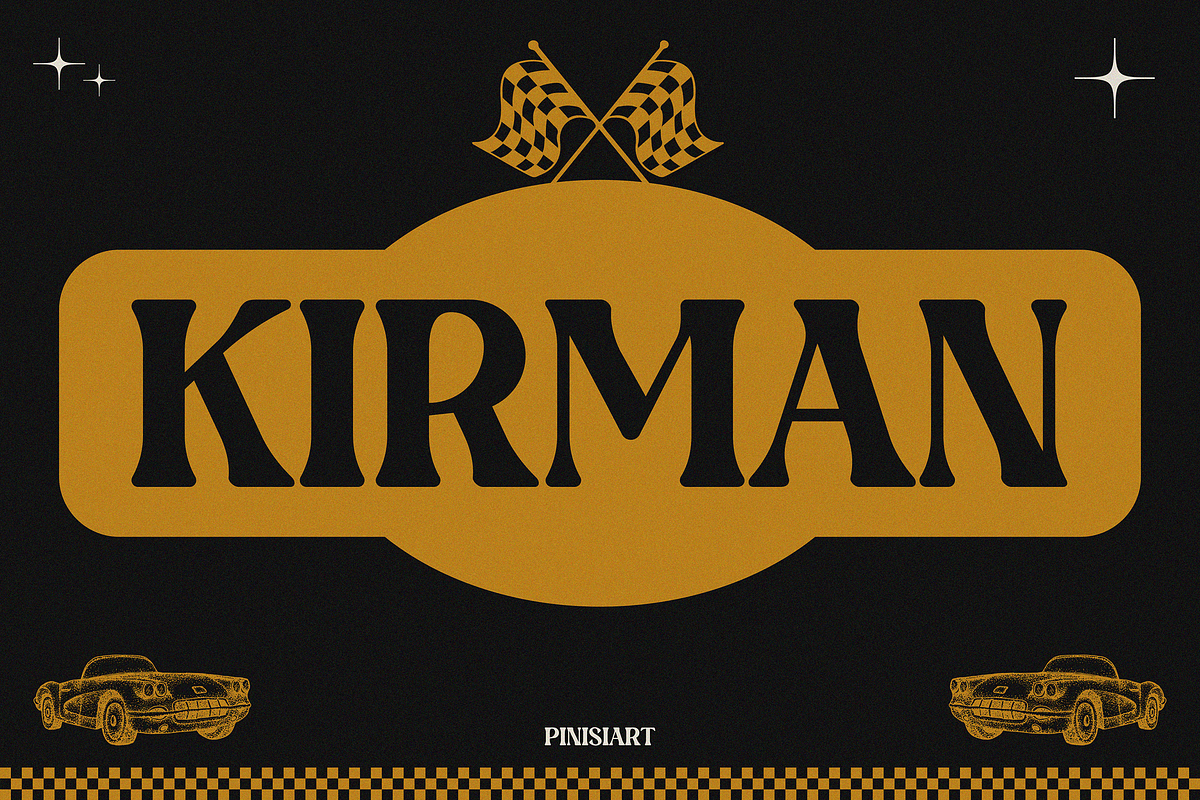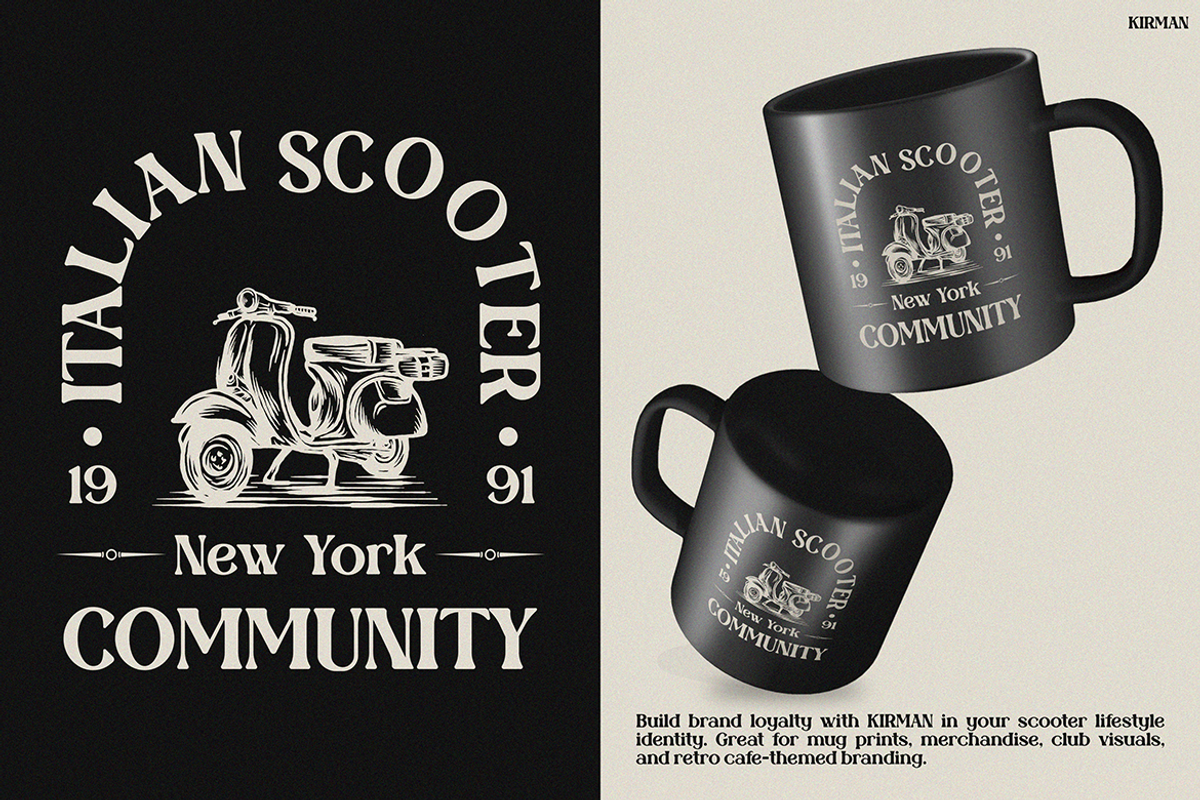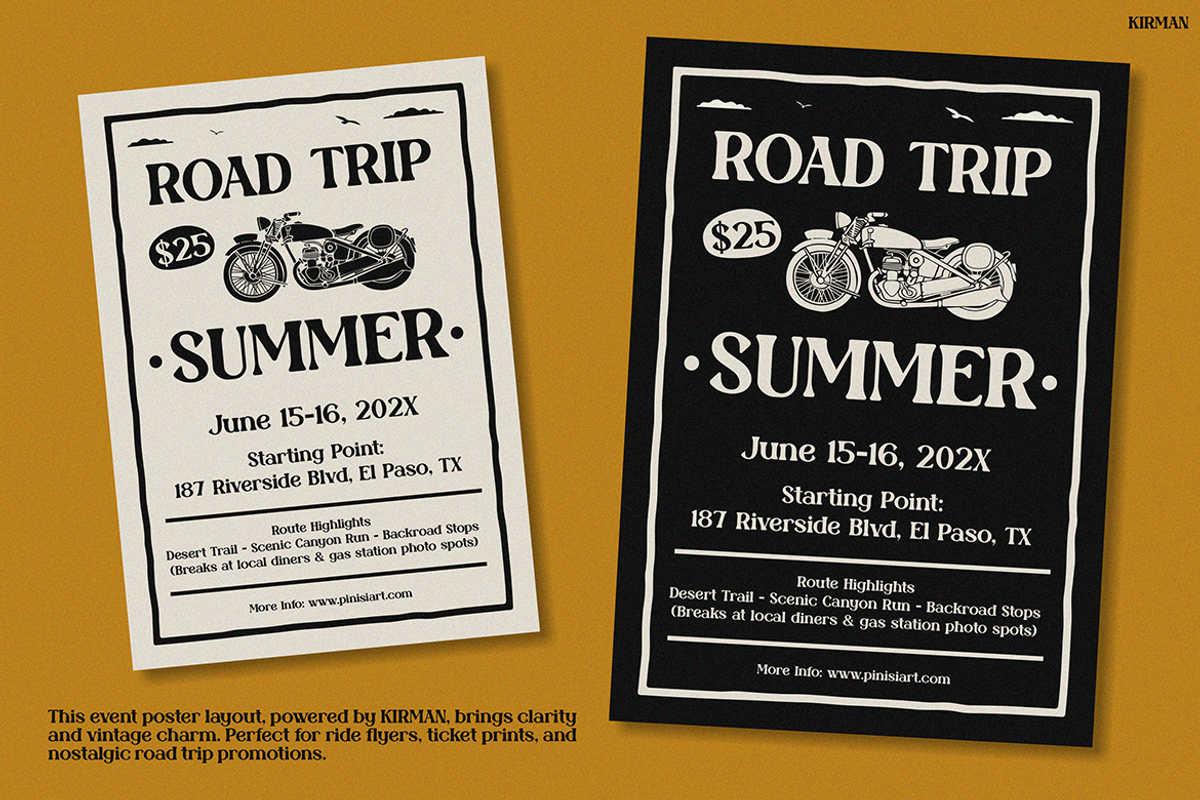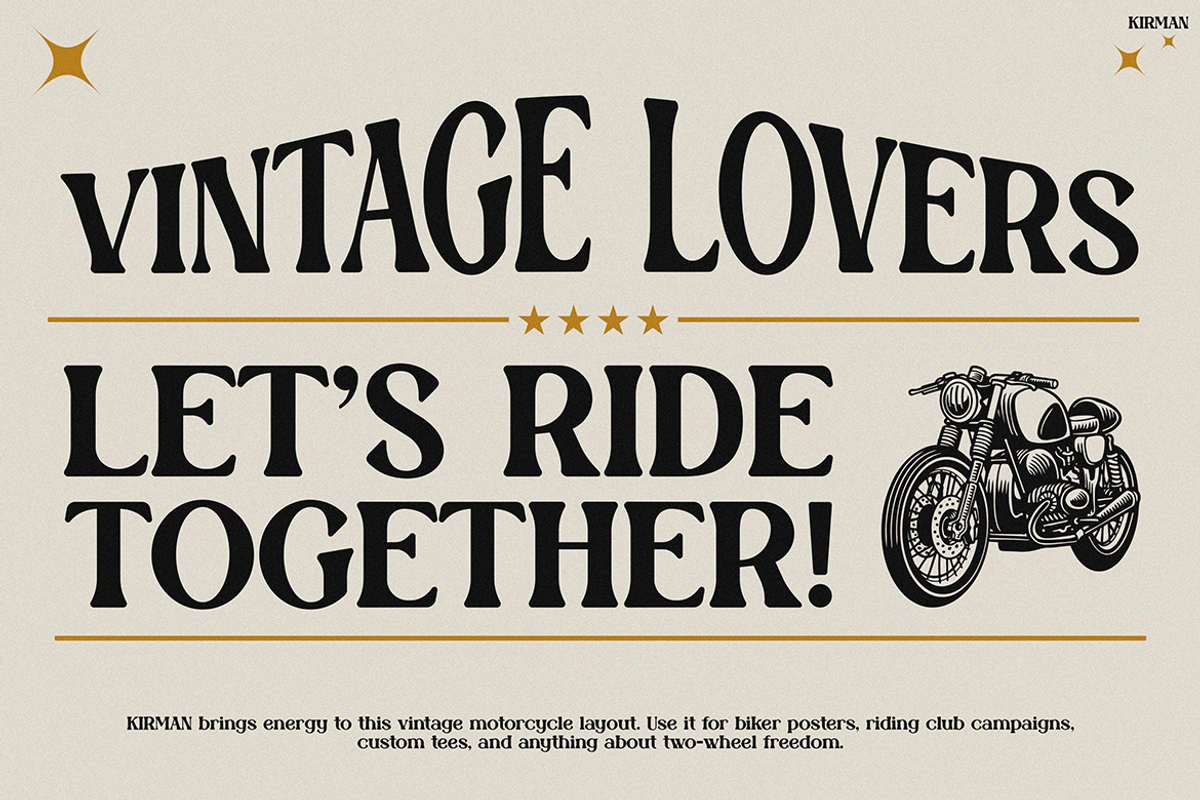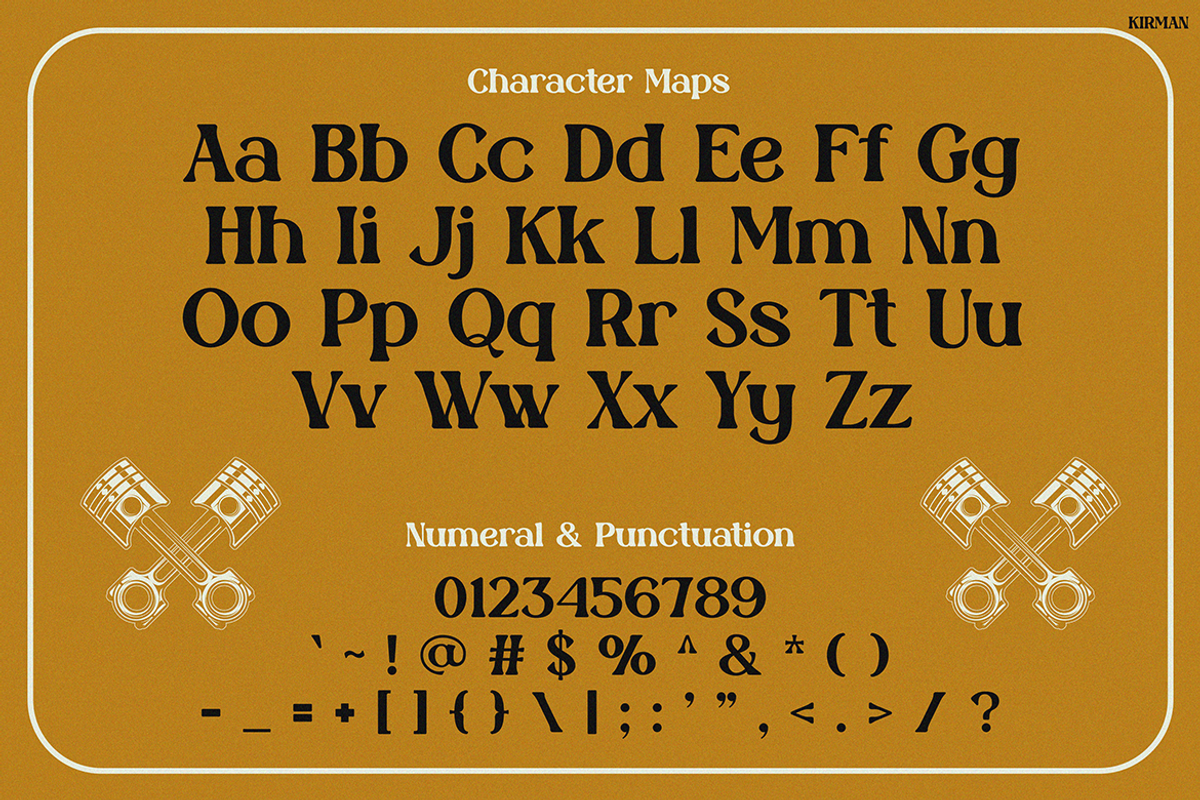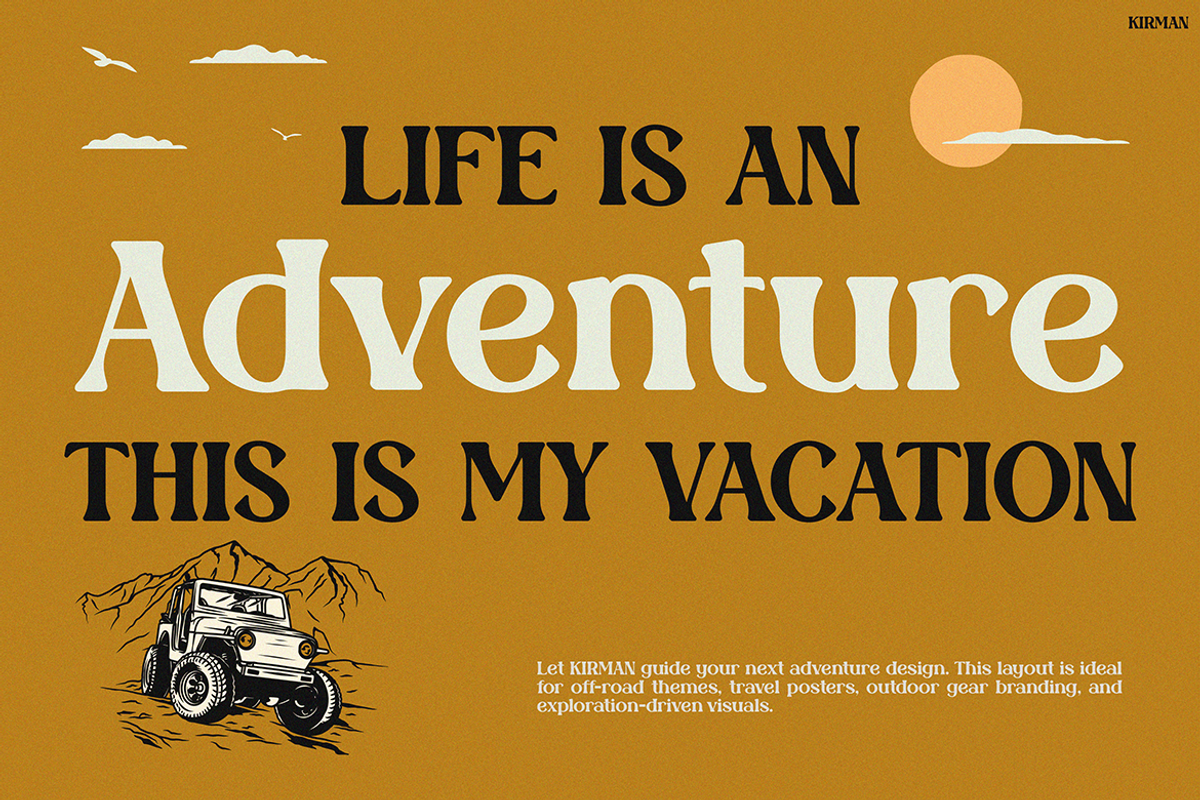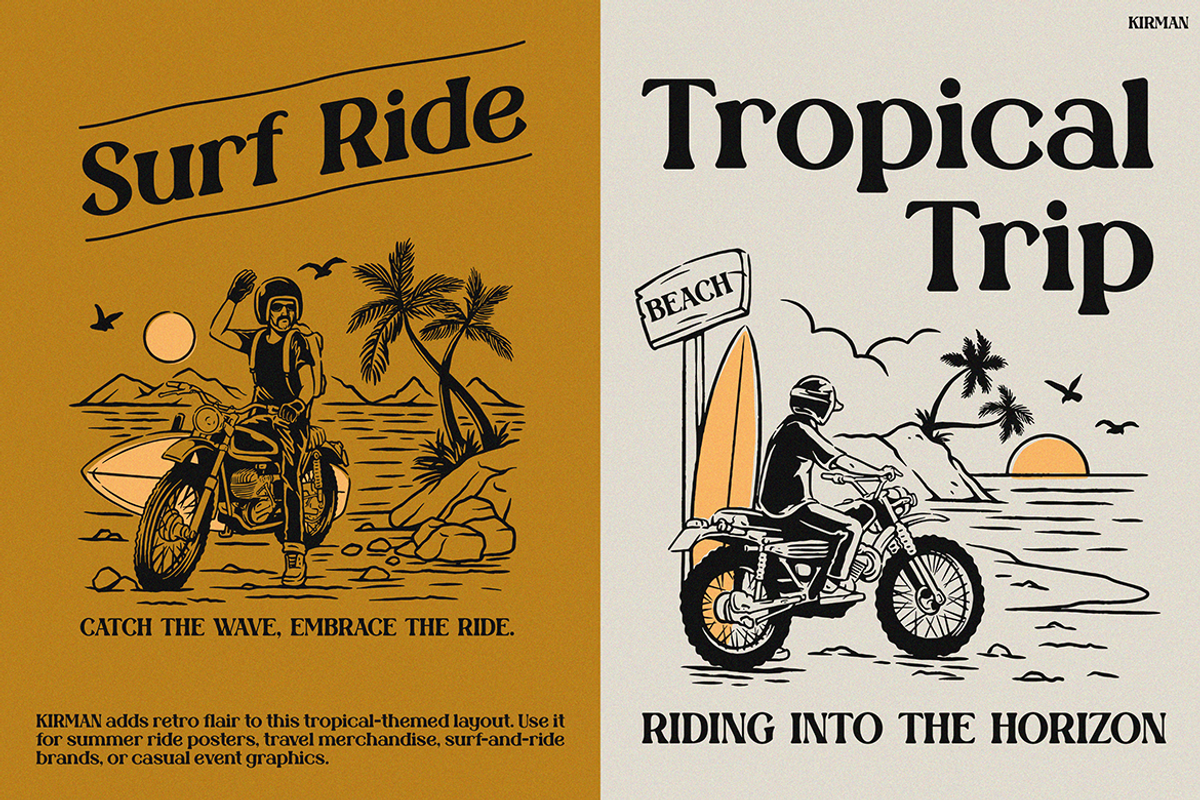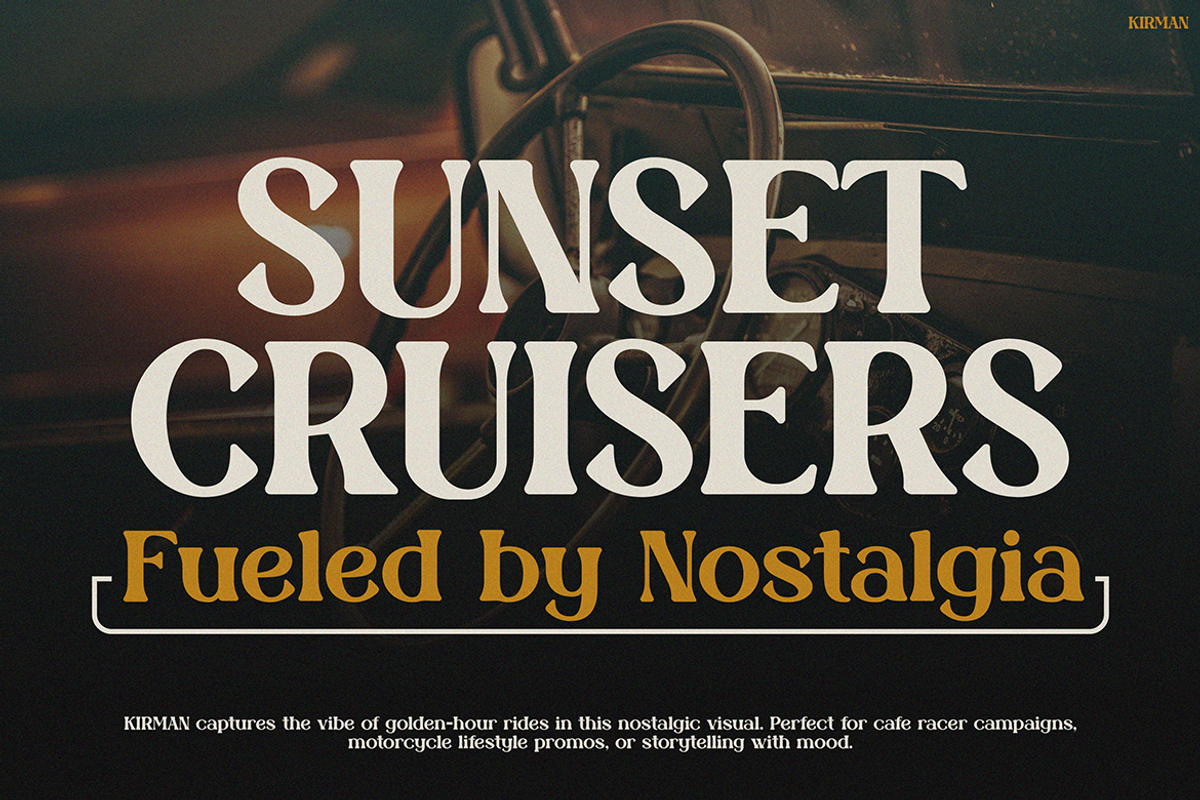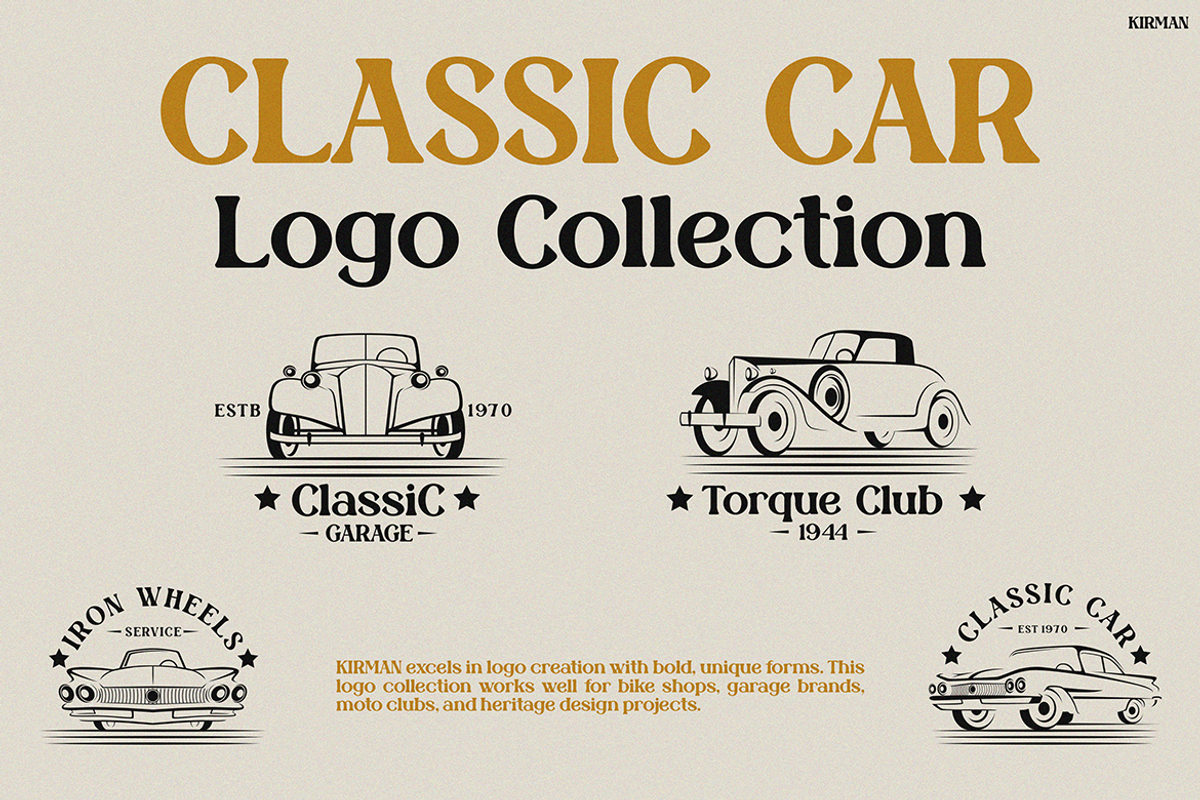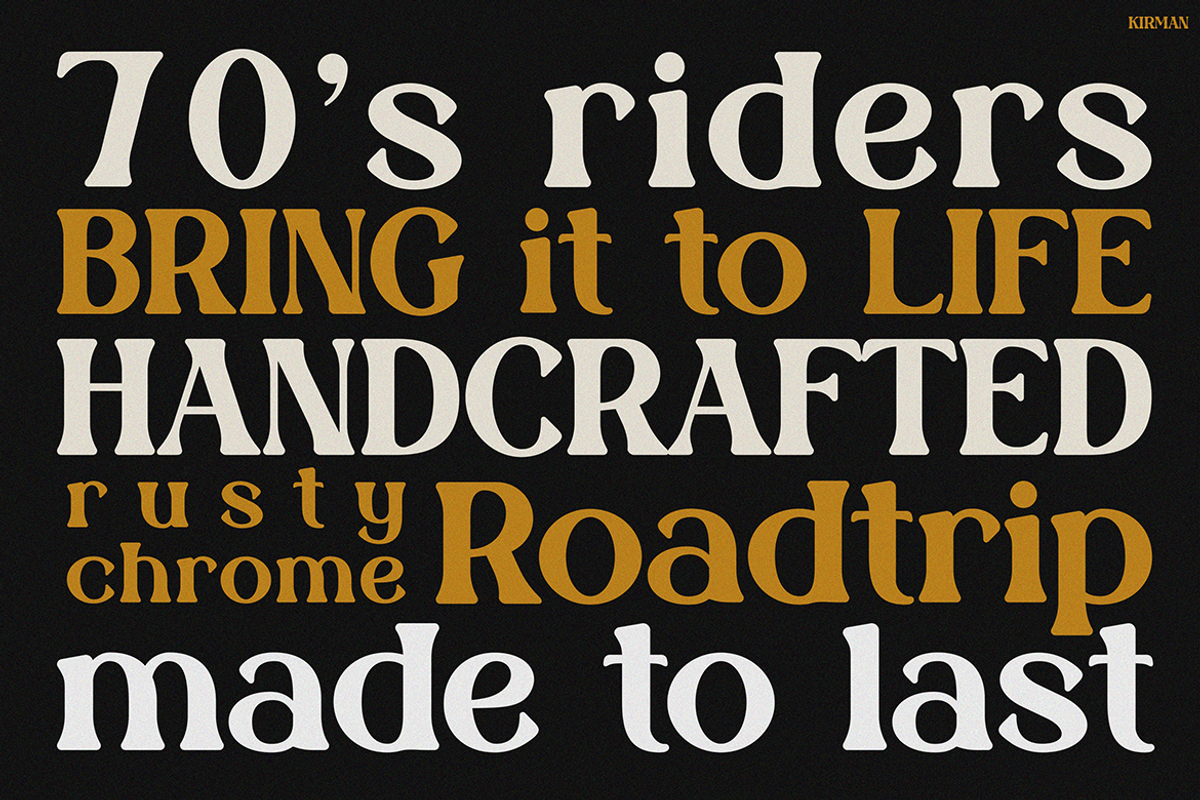
KIRMAN
A Bold Blend of Retro Style and Functional Charm Vintage Font KIRMAN grabs attention with its timeless, handcrafted style. It adds character and flair to any design. While it evokes retro charm, it also brings a bold and modern edge. With smooth curves and sharp serifs, this font is made to stand out. As a result, it works great for posters, apparel, mugs, or branding.
Moreover, KIRMAN is more than just good looks. It’s built for versatility. Thanks to its clear letterforms, it’s easy to read in both print and digital formats. Whether you’re recreating vintage motorcycle culture or designing tropical surf visuals, this font fits the vibe. In short, KIRMAN is a tool for creative storytelling.
Vintage Font KIRMAN blends style and function in one unique typeface. It’s perfect for designers who love bold and nostalgic looks. Because of its classic charm, it enhances branding, posters, merchandise, and more.
Additionally, its tall, bold letters offer strong readability. Even from a distance, it remains clear and attractive. This makes it ideal for merchandise, event visuals, or café branding. It adapts well to both large-scale and detailed layouts. As a result, designers can use it across many platforms without losing its unique feel.